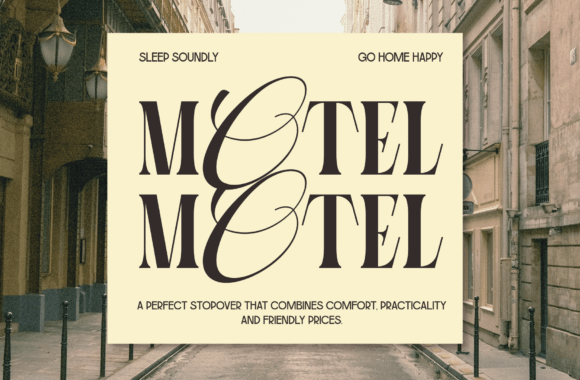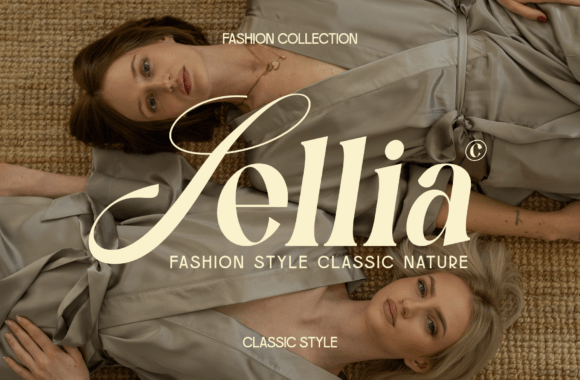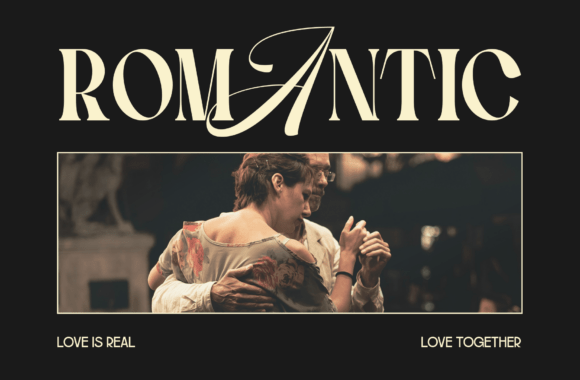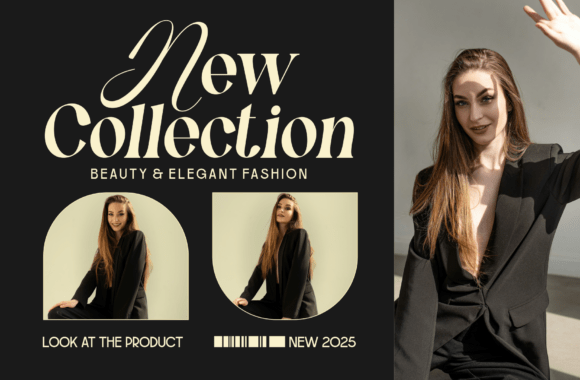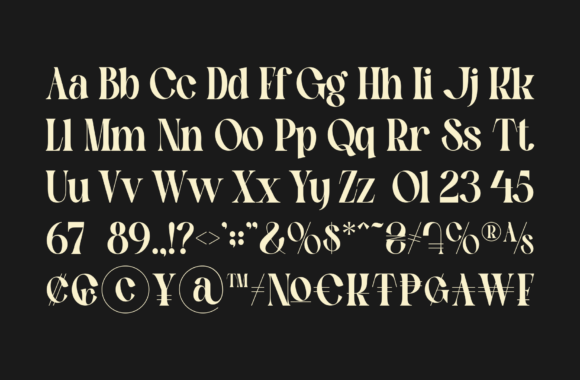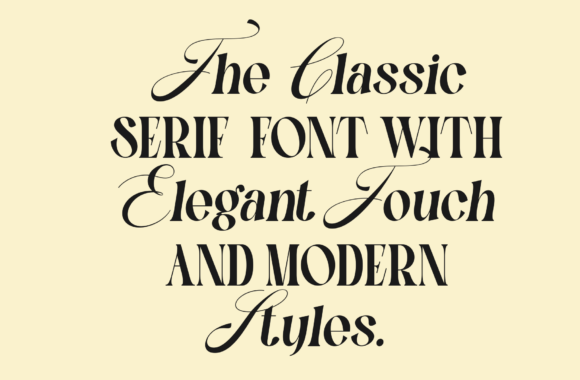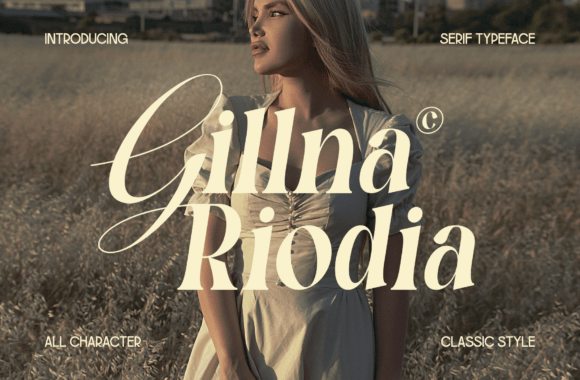
Evoke Timeless Luxury with Gillna Riodia Font
In the realm of typography, few fonts manage to convey the essence of high-end style and classic editorial elegance as effectively as the Gillna Riodia font. This sophisticated serif typeface is a masterclass in refined luxury, making it the perfect choice for designers and crafters looking to imbue their projects with a sense of vintage sophistication and cutting-edge flair.
The Distinctive Characteristics of Gillna Riodia
The Gillna Riodia font is distinguished by its striking contrast between thick, vertical strokes and delicate, hairline horizontals. This contrast not only adds depth and character to the typeface but also lends it a unique visual appeal that is hard to ignore. Furthermore, the inclusion of graceful, sweeping swashes on its signature characters elevates the font to new heights of elegance and refinement.
Crafted for Luxury and Elegance
Designed specifically for the worlds of high fashion, luxury lifestyle, and fine art, Gillna Riodia embodies the very essence of classic style. Its versatility allows it to bridge the gap between vintage and contemporary design, making it an invaluable asset for designers aiming to create a lasting impression. Whether it’s for magazine mastheads, luxury boutique logos, or elegant product packaging, Gillna Riodia stands out as a premier choice.
Styling with Gillna Riodia
To unlock the full potential of the Gillna Riodia font and create a truly high-fashion aesthetic, designers should consider pairing it with atmospheric photography and generous white space. This approach allows the intricate details of the serifs to breathe, creating a visually stunning effect. The font excels when used for large headlines, where its unique swashes can act as decorative elements in their own right, adding an extra layer of sophistication to the design.
Enhancing with Color Palettes
To further enhance the design and evoke a sense of old-world luxury, designers can draw upon muted color palettes. Shades of cream, deep blues, and rich burgundies can complement the elegance of the Gillna Riodia font, creating a cohesive and luxurious look. These “old-world” color palettes not only resonate with the classic vibe of the font but also add warmth and depth to the overall design.
Versatility and Application
The versatility of the Gillna Riodia font is one of its most compelling attributes. Its ability to adapt to various design needs makes it an indispensable tool for creatives. Here are a few ways designers can leverage Gillna Riodia:
• Magazine Mastheads: Create a lasting first impression with elegant and sophisticated mastheads that set the tone for the rest of the publication.
• Luxury Boutique Logos: Convey the essence of high-end fashion and luxury with logos that exude class and refinement.
• Elegant Product Packaging: Elevate product packaging with a touch of sophistication and elegance, making the product stand out in a crowded market.
The Gillna Riodia font is more than just a typeface; it’s a statement of luxury, elegance, and refinement. Its unique blend of classic style and modern sophistication makes it an invaluable resource for designers and crafters aiming to create high-end designs. Whether you’re working on a fashion magazine, a luxury brand logo, or elegant product packaging, Gillna Riodia offers the perfect combination of vintage charm and cutting-edge style to elevate your designs to new heights.
Getting Started with Gillna Riodia
For those interested in harnessing the power of the Gillna Riodia font, the process begins with a simple search. Look for reputable font foundries or design resource websites that offer Gillna Riodia for download. Once acquired, designers can start experimenting with the font, exploring its various features, from the standard characters to the more decorative swashes. The key to mastering Gillna Riodia lies in experimentation and creativity, so don’t hesitate to push the boundaries of what’s possible.
In conclusion, the Gillna Riodia font stands as a testament to the enduring power of elegant typography in design. Its ability to evoke a sense of timeless luxury and classic editorial grace makes it a valuable asset for any designer looking to make a statement. With its versatile application, stunning aesthetic, and rich history, Gillna Riodia is poised to remain a beloved choice among designers for years to come.